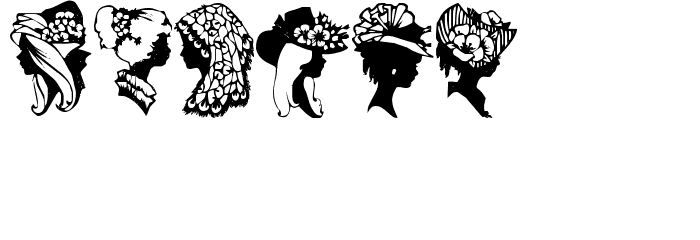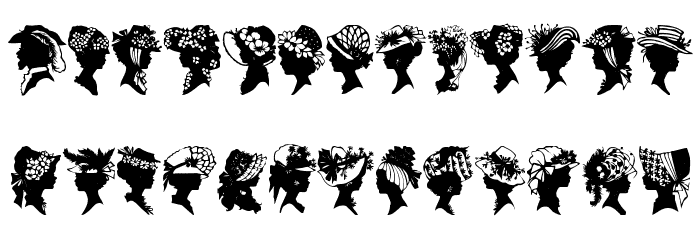
WWFancyHats Font
WWFancyHats Description
A decorative font featuring detailed black silhouette profiles of women wearing elaborate, vintage-style hats adorned with flowers and feathers. Each character is a unique illustration, emphasizing ornate headwear and classic fashion elements.
| Overall Style | Decorative, Vintage |
| Use Case | Logos, Headlines, Themed graphics, Invitations |
| Proposed Projects | Event invitations, themed posters, vintage branding, decorative headings, scrapbooking, theatrical programs. |